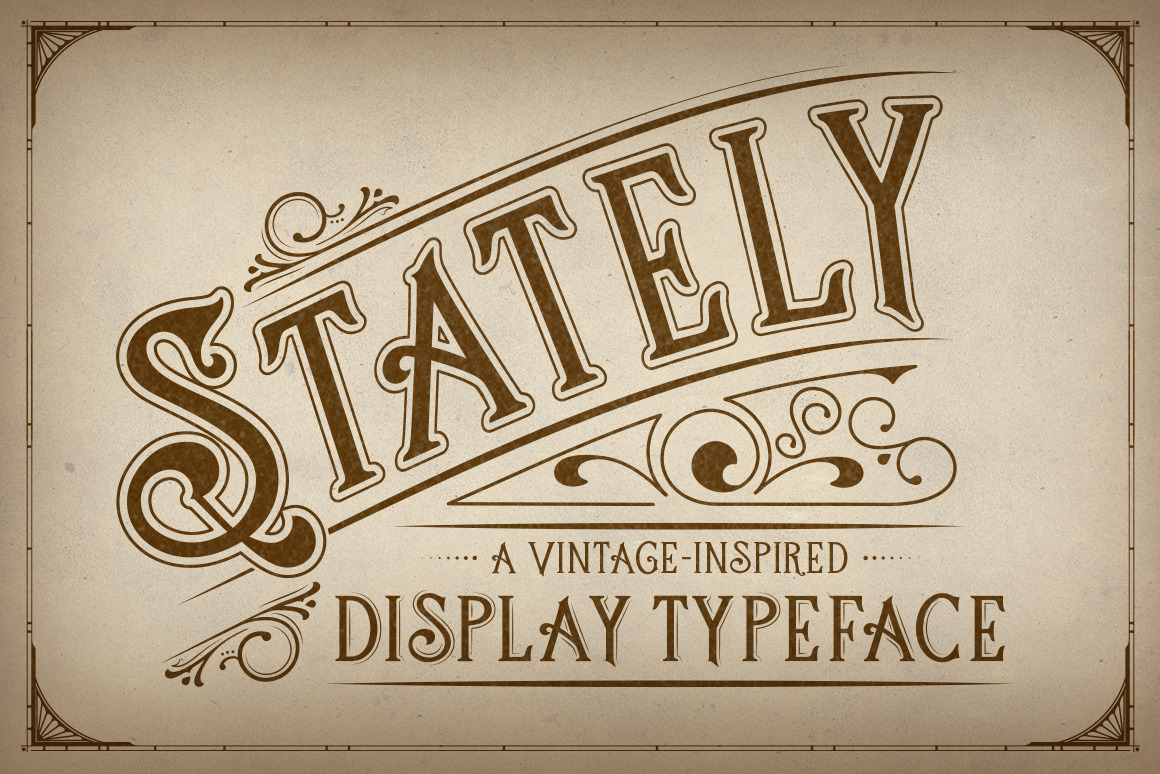
Stately Display Typeface
Looking for a new dignified display typeface? Try Stately, a new vintage-inspired typeface.
I created this typeface based on the lettering I did for two t-shirt designs that I created for 50StatesApparel.com, hence the name Stately.
Those designs (the Georgia and North Carolina sample images above) were inspired by decorative typographic compositions of the Victorian era.
This vintage-inspired typeface is perfectly suited for creating similar compositions. It’s also ideal for monograms, logos, posters, letterhead, and packaging design projects.